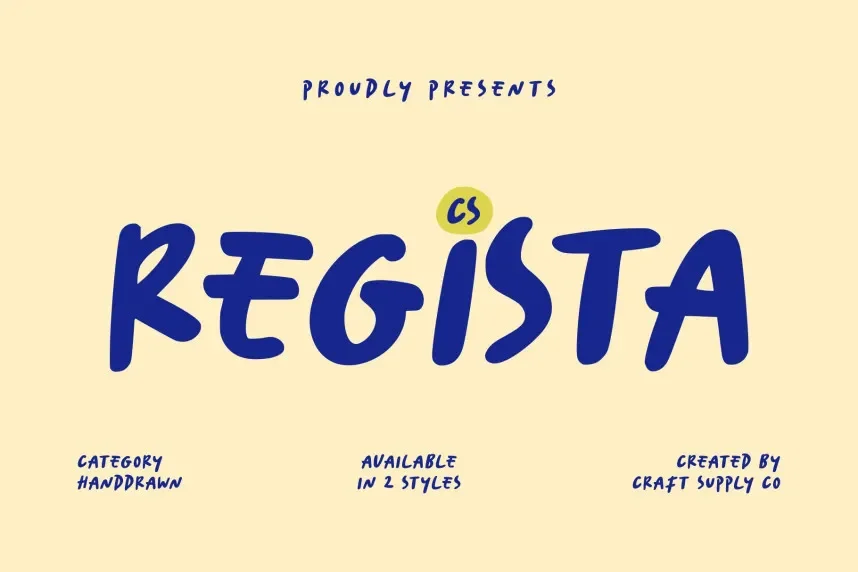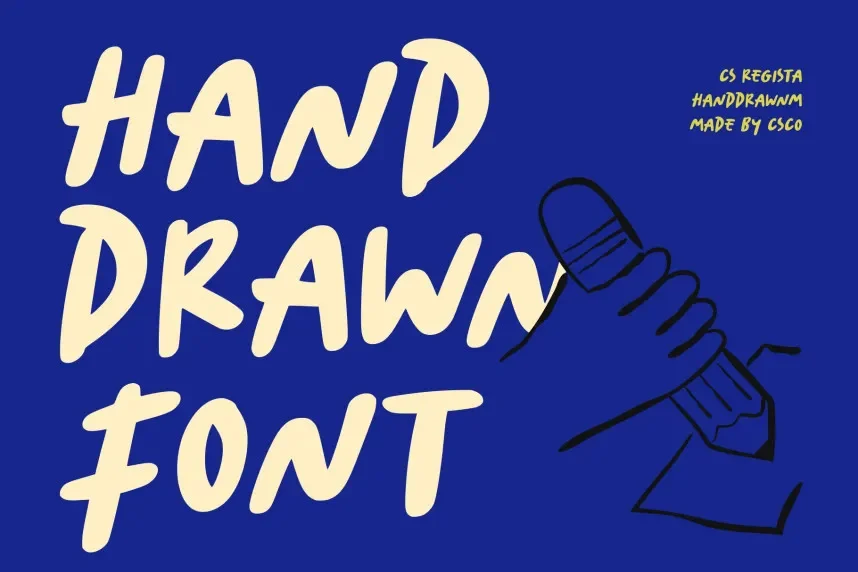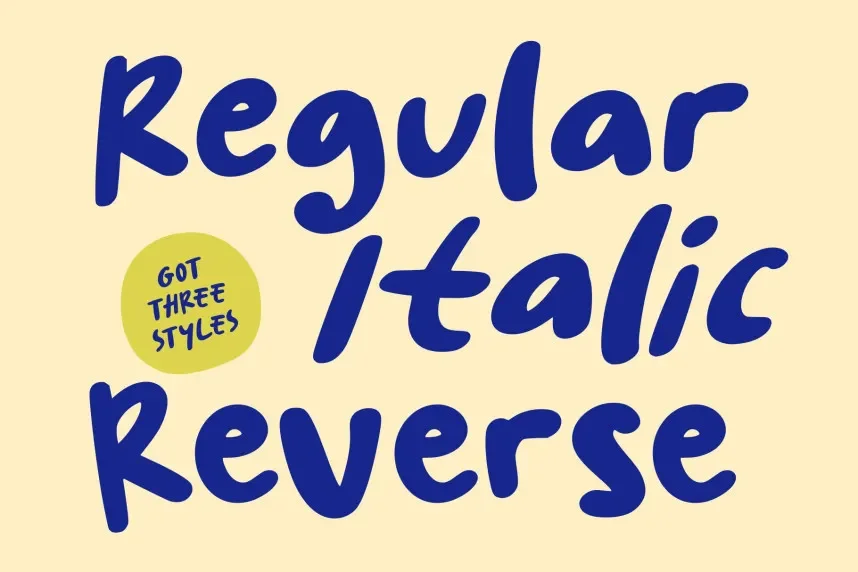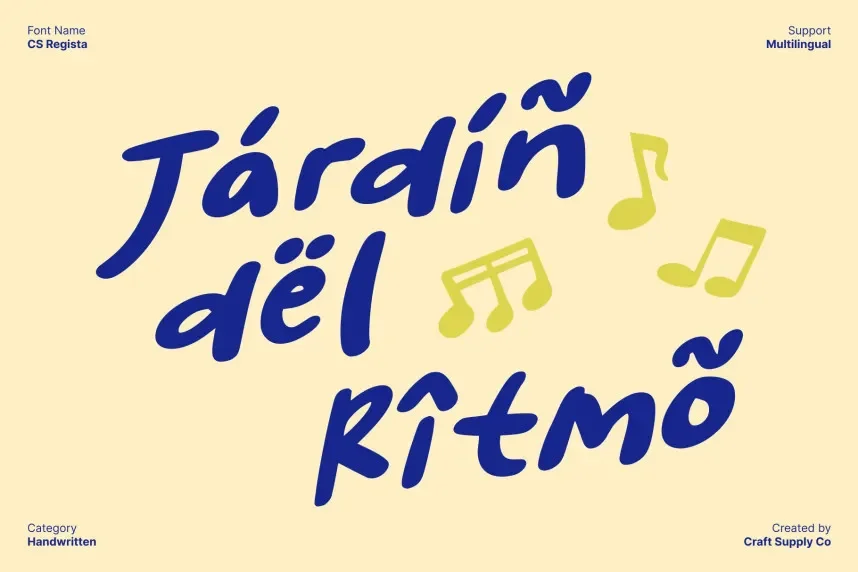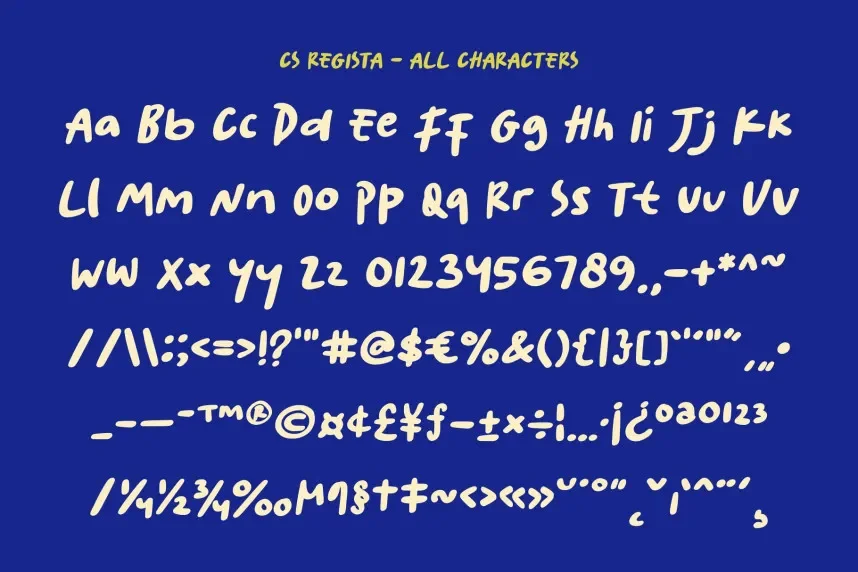
CS Regista Font helps designers apply serif typography while keeping layouts clean and readable. Many modern serif fonts add too much ornamentation for branding use.
CS Regista is a modern serif font with balanced proportions, controlled stroke contrast, and clean serif details. The letterforms support clear hierarchy in headings and logos.